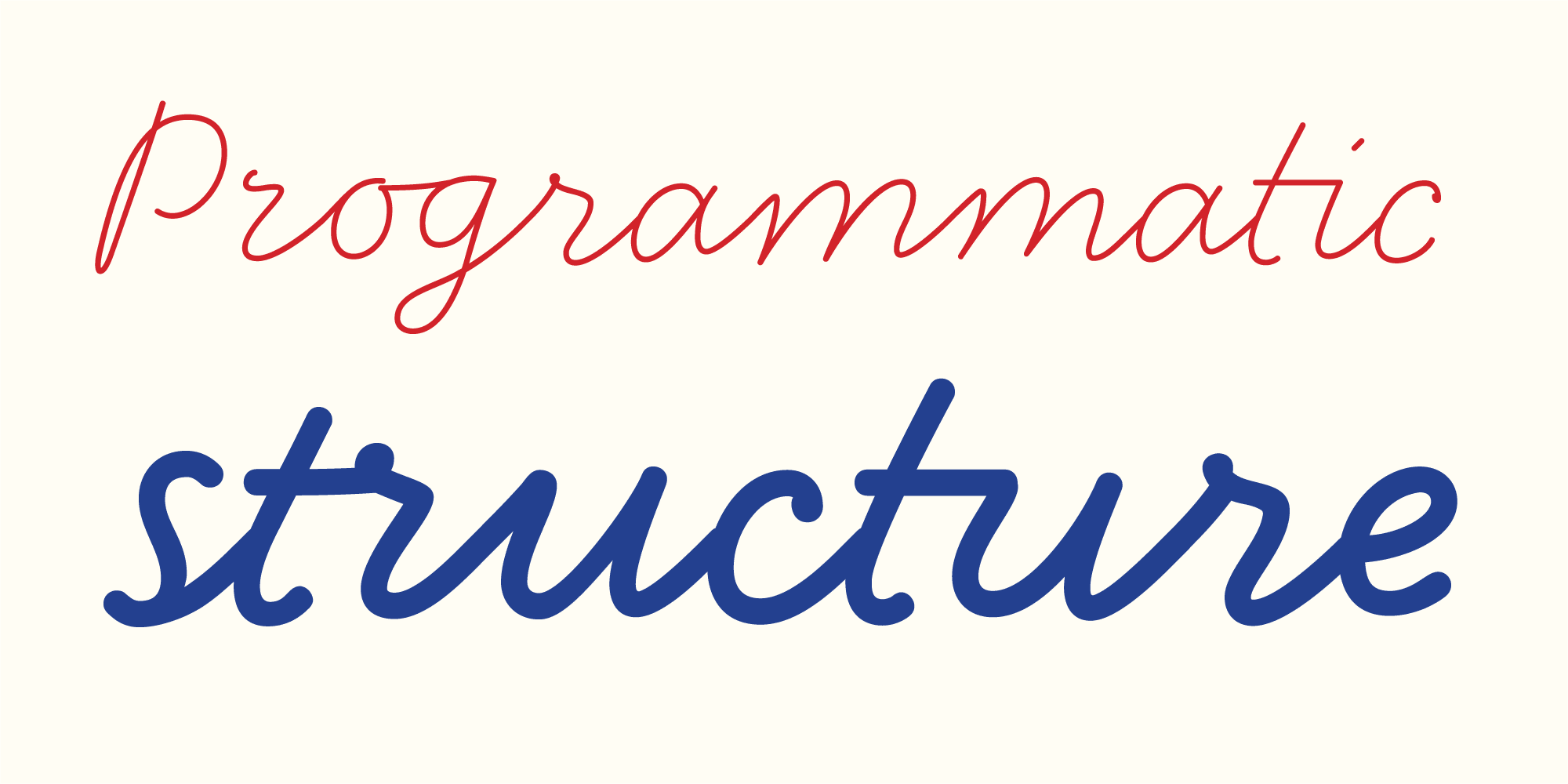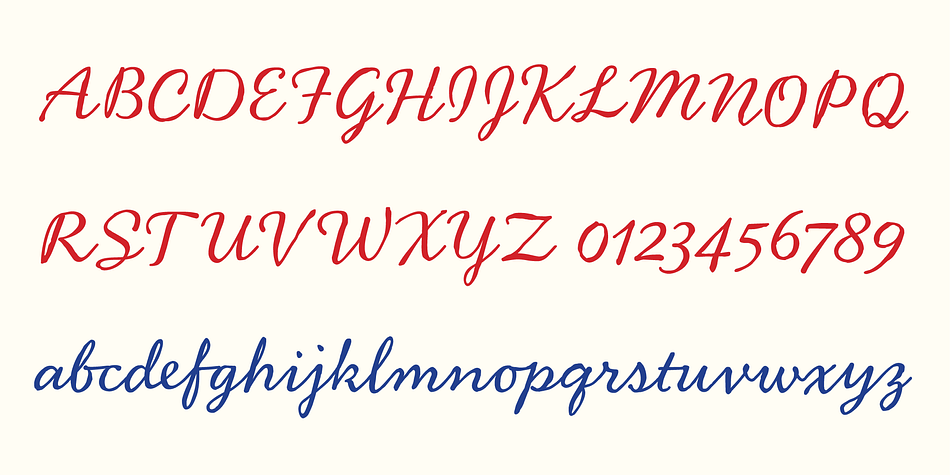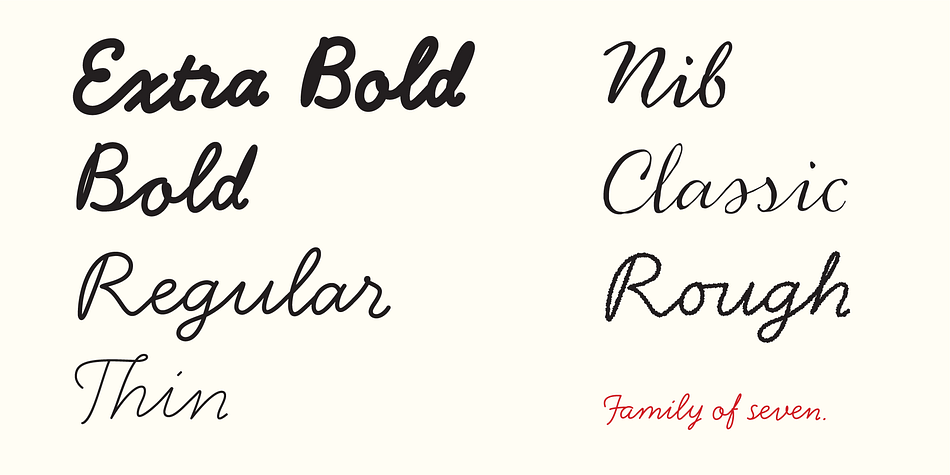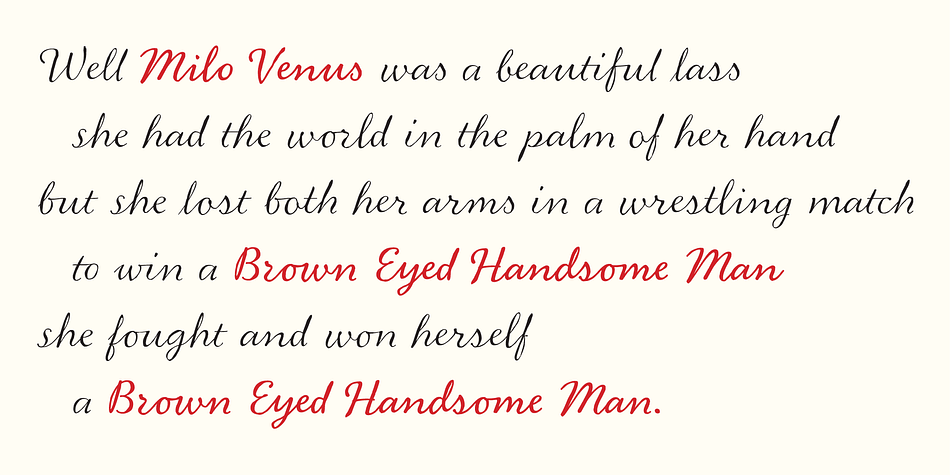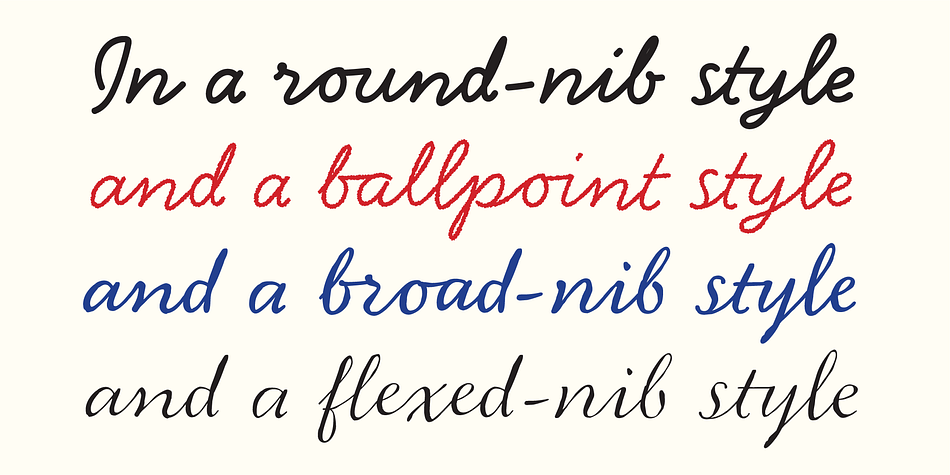
Handsome Pro is a script font family. This typeface has seven styles and was published by Shinntype.
The digital font as biomimetic software, making robot writing that disguises its artifice behind a shifting cast of character alternates. In parroting the joining rules of cursive script Shinn holds a mirror to pen culture, revealing an affinity between the programmatic structure of formal writing systems and the binary logic of advanced digital typography.